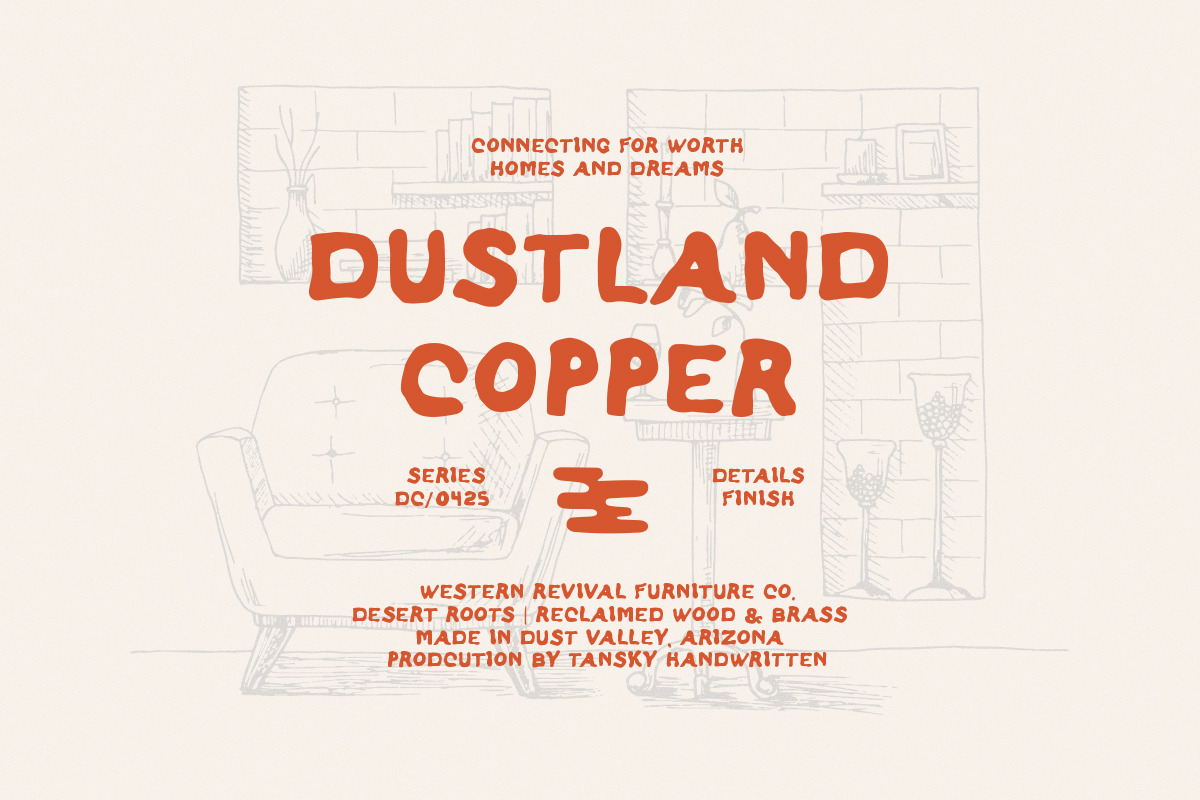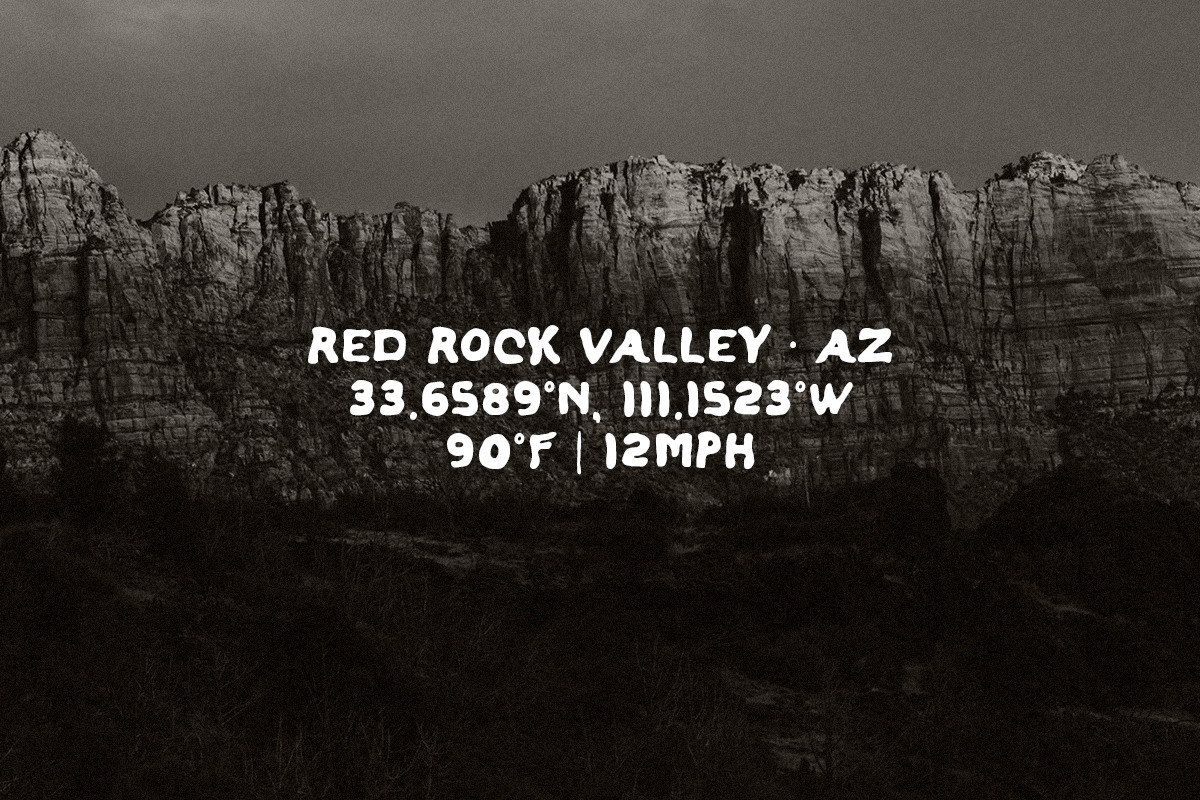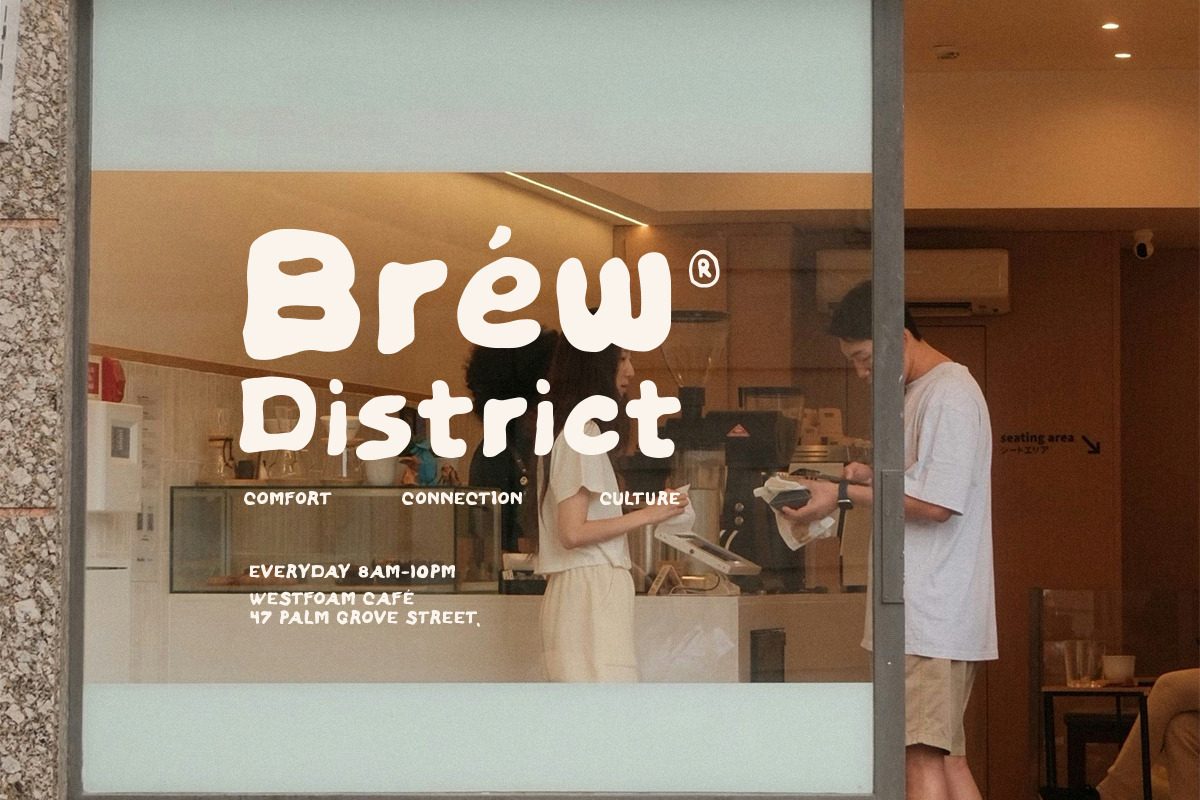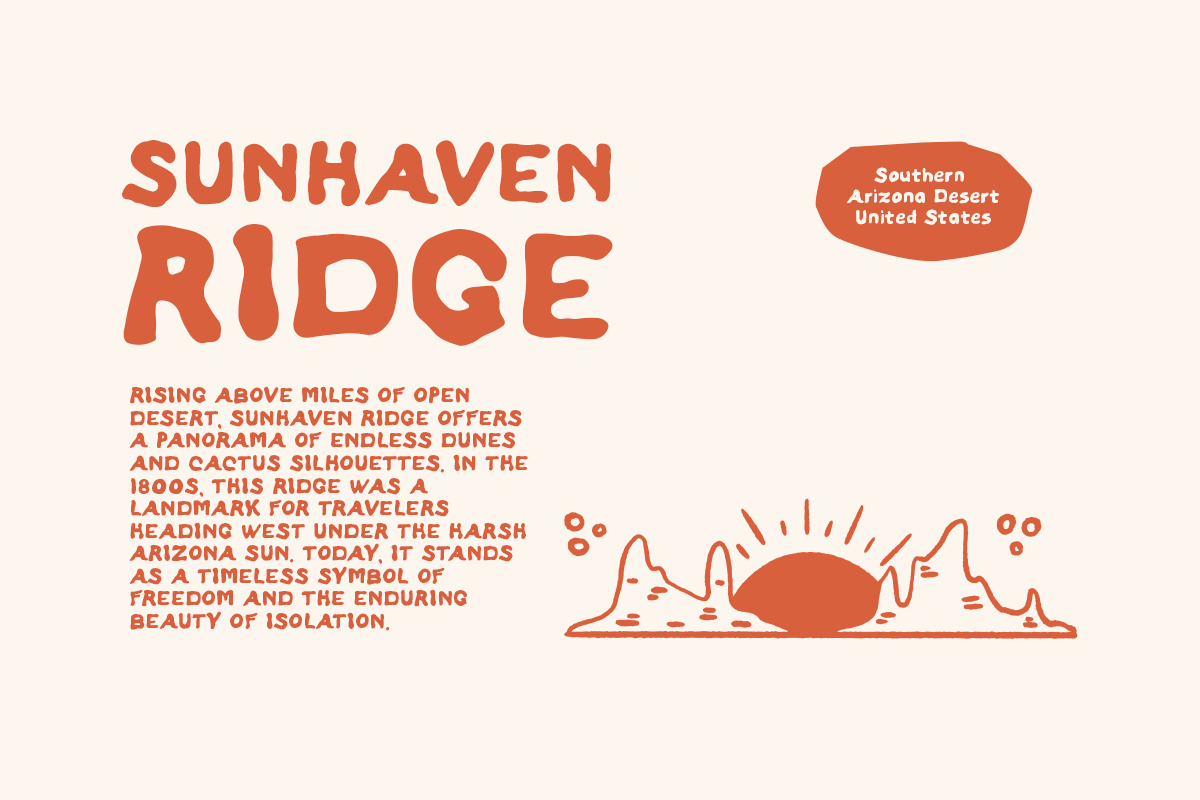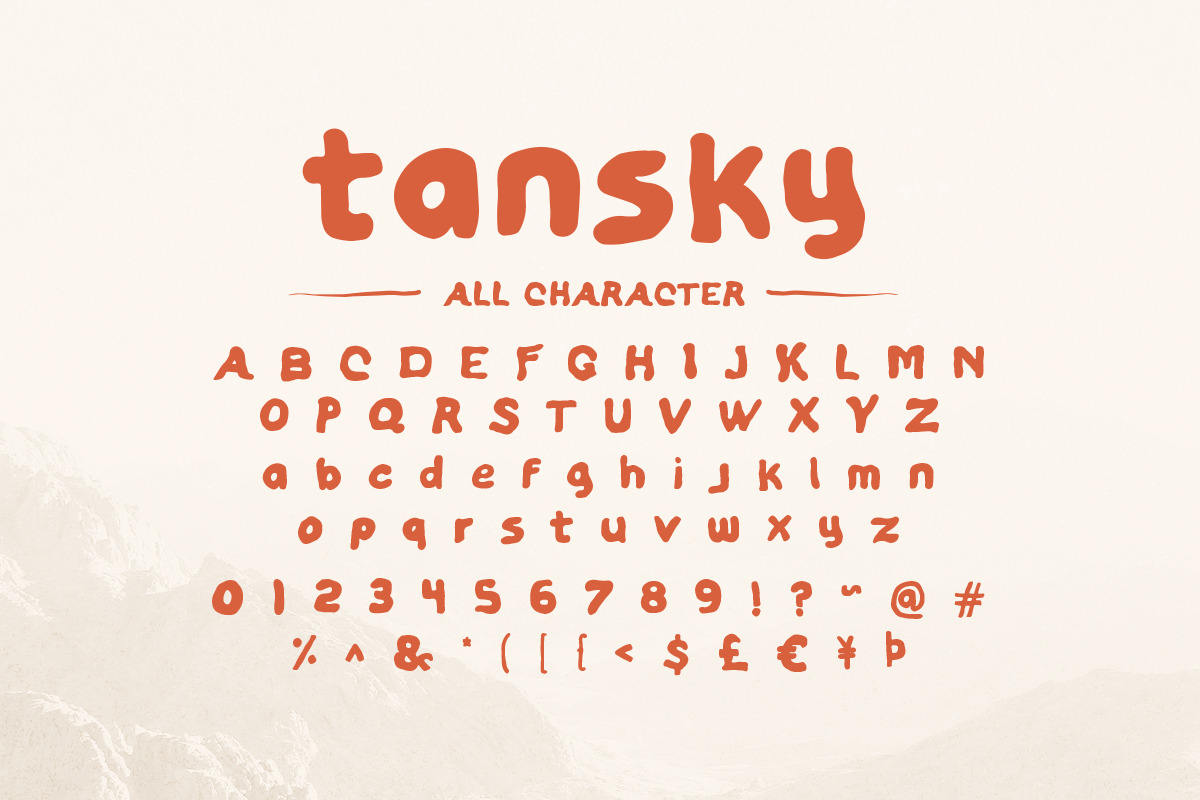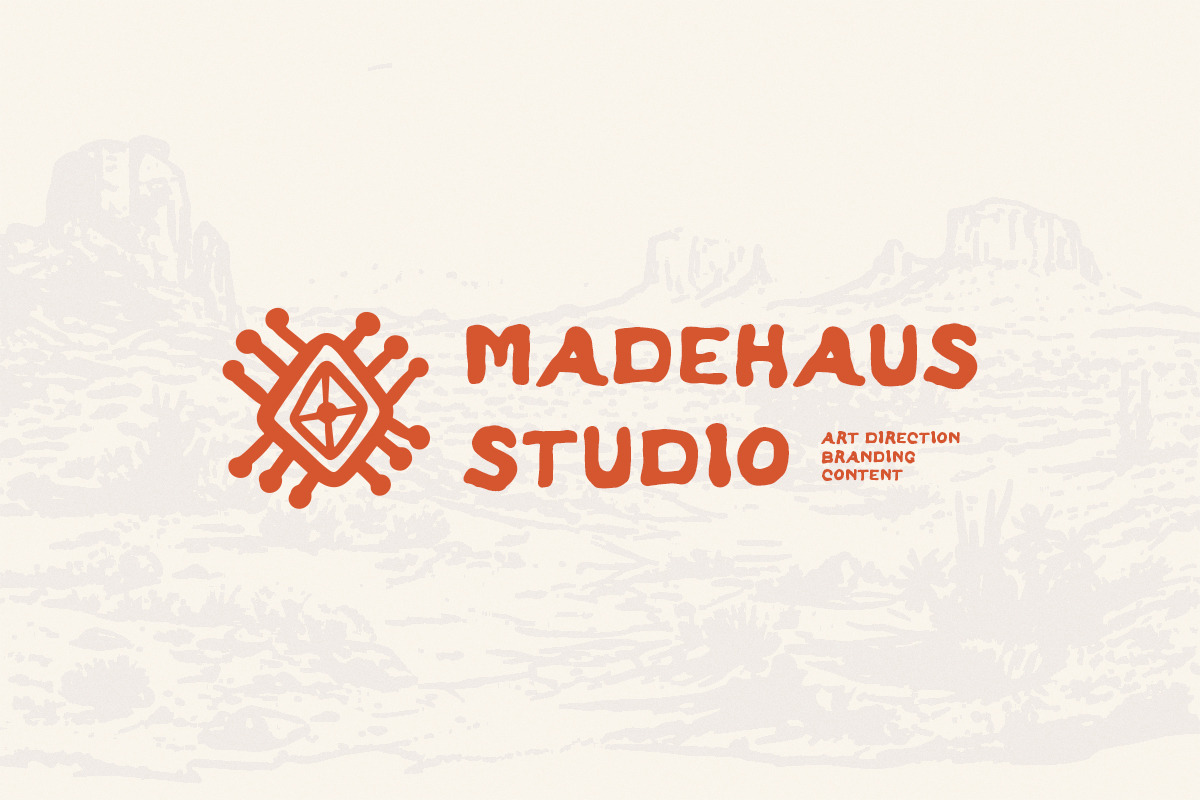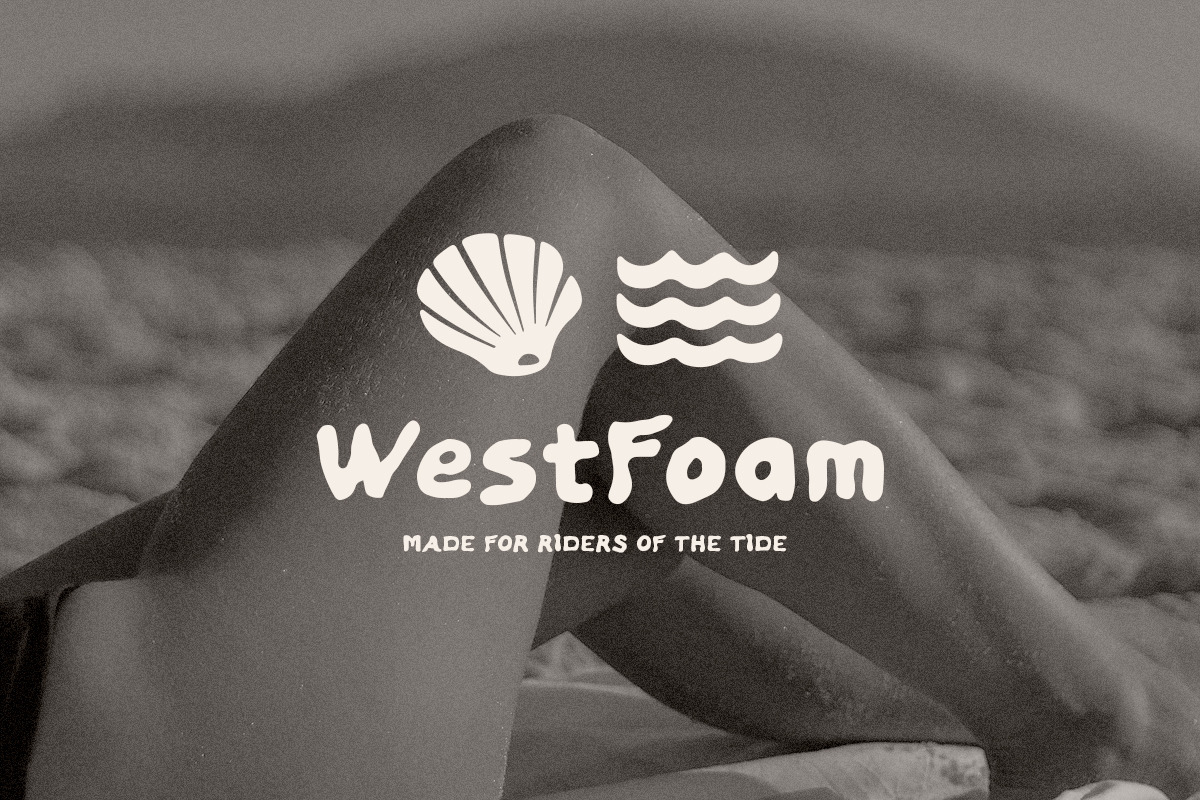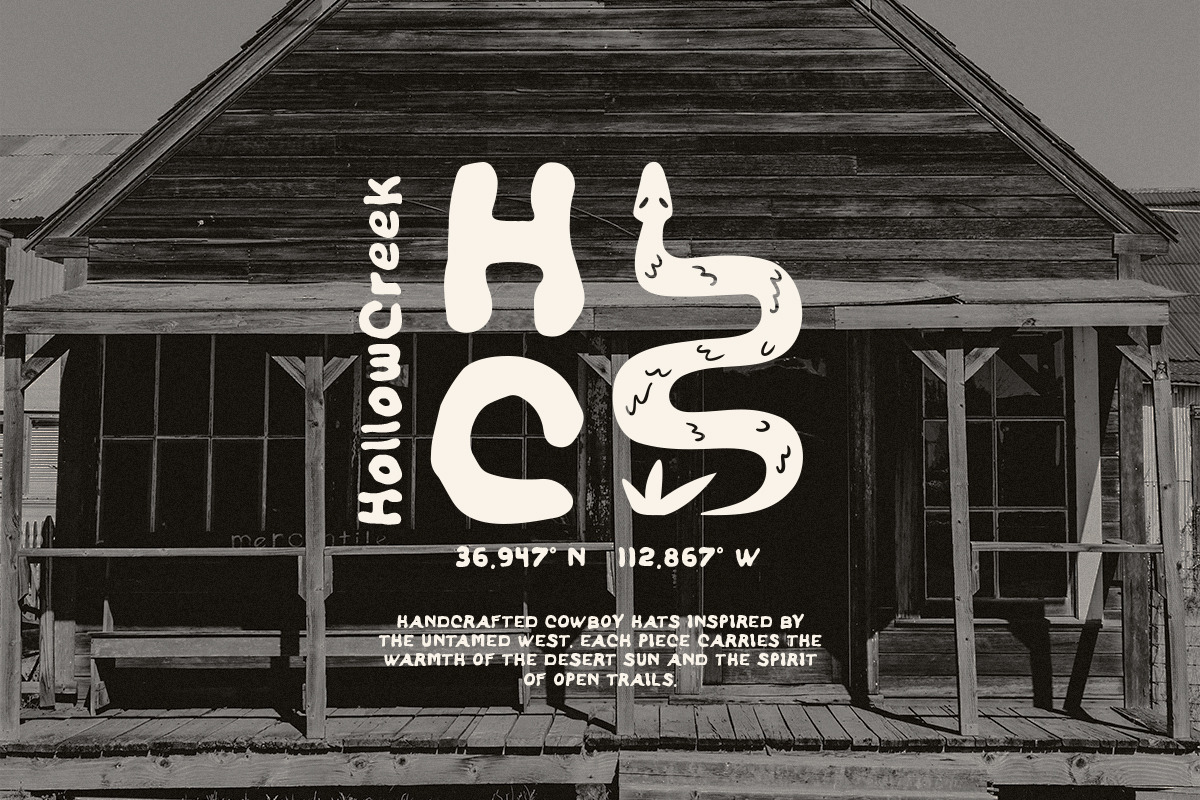
Tansky – Written in Bold
Tansky is a bold handwritten font inspired by the beauty of natural imperfection. Its organic flow and strong texture make it a striking choice for modern creatives who value authenticity and artistic touch. Use Tansky to bring warmth, emotion, and handcrafted charm to your visual storytelling.